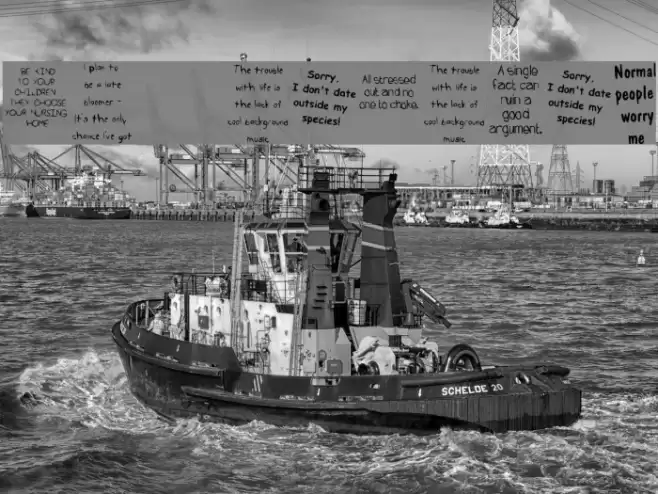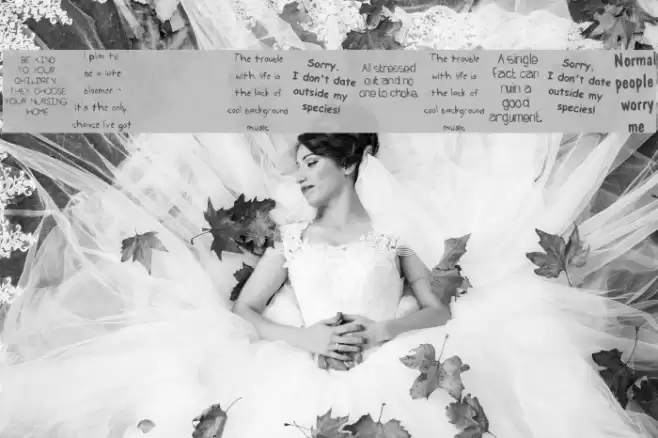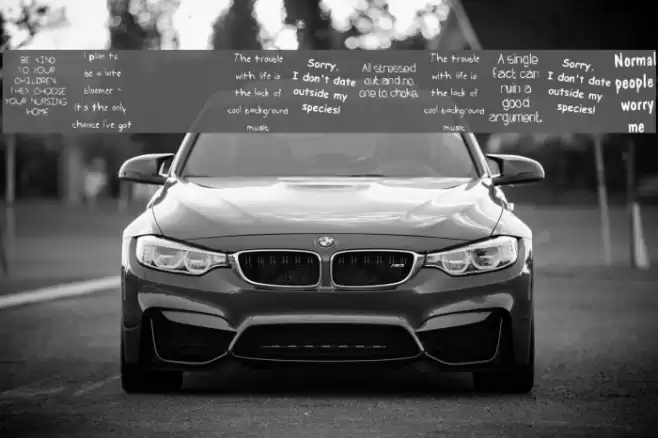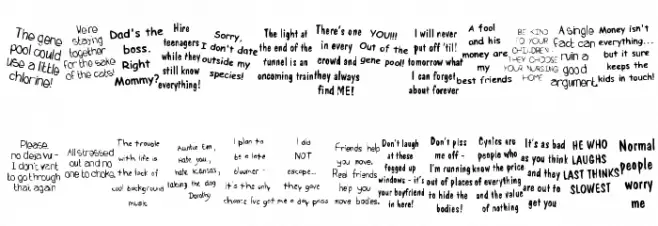
KR Peoplez Font
KR Peoplez Description
This font features a playful and casual handwritten style, characterized by its uneven and slightly irregular letterforms. The strokes vary in thickness, giving it a dynamic and lively appearance. The letters are slightly slanted, adding to the informal and relaxed feel. The font includes both uppercase and lowercase letters, numbers, and a selection of special characters. Its whimsical nature makes it suitable for creative projects that require a personal touch.
A playful, handwritten font with dynamic, irregular strokes from Uncategorized fonts.
- Proposed Projects: Ideal for greeting cards, children's books, casual invitations, and creative social media graphics.
- Overall Style: Casual
- Use Case: Headlines, Informal text, Creative projects